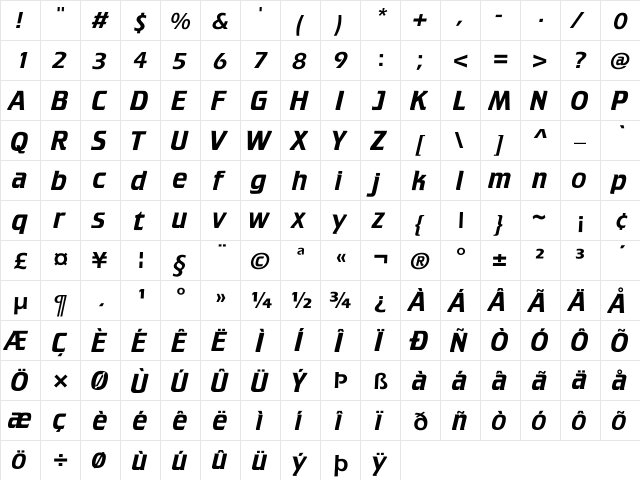
Crillee Regular
Design Context for Crillee Typeface
Crillee offers clean, dependable letterforms without strong stylistic allegiance, making it a practical choice for designers who need flexibility.
Pro Tip: Pair Crillee with a font of contrasting weight or personality to build a more expressive typographic hierarchy.